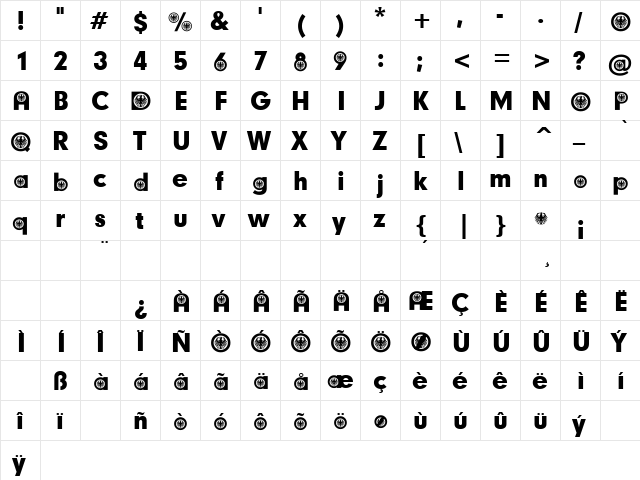
German Participants Regular
Design Context for German Participants Typeface
German Participants offers clean, dependable letterforms without strong stylistic allegiance, making it a practical choice for designers who need flexibility.